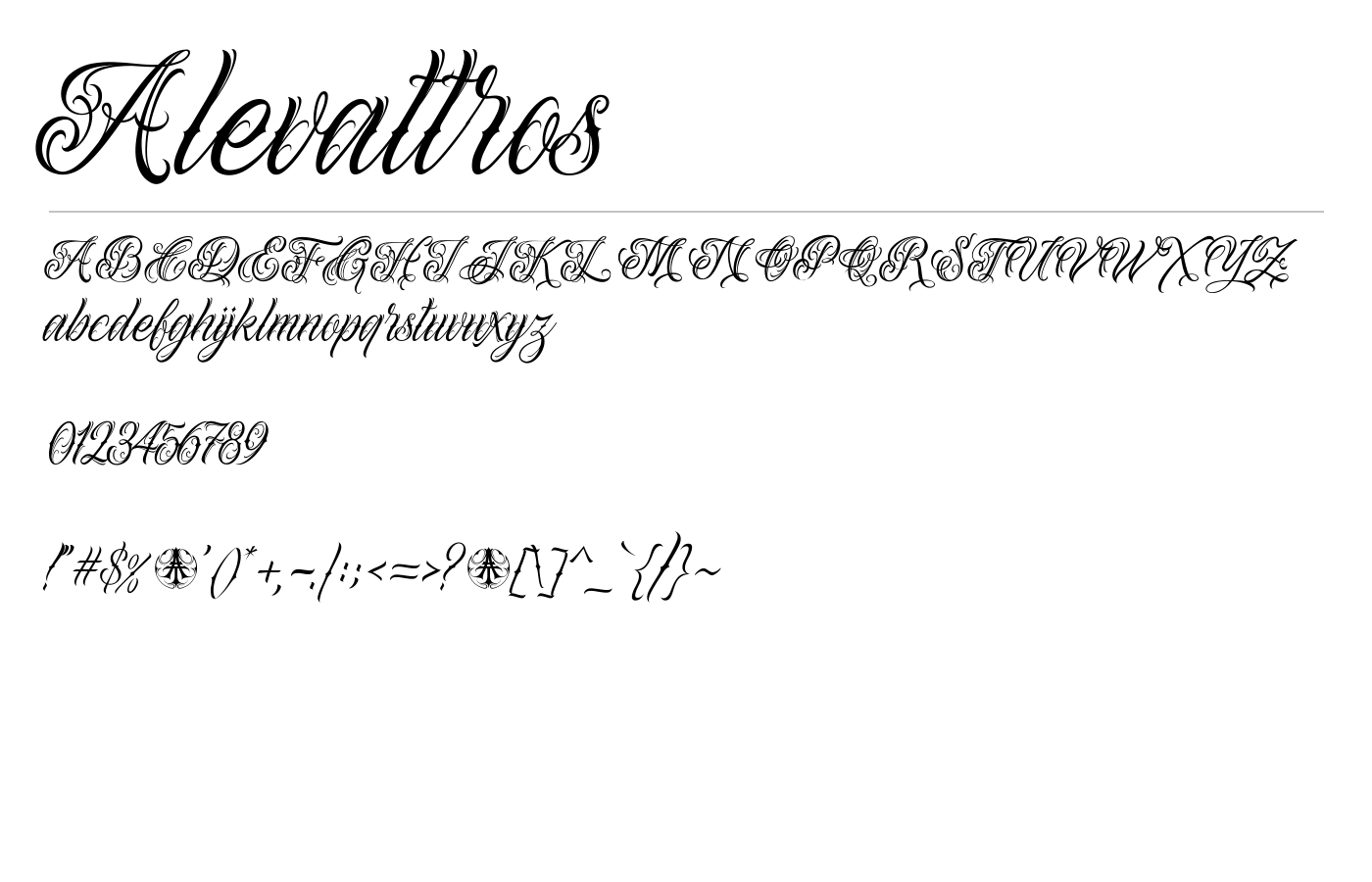
Alevattros is an ornate script font featuring elegant, flowing letterforms with fine, high-contrast strokes that evoke a classic and sophisticated style. Its intricate swashes and delicate curves make it ideal for luxury branding, wedding invitations, and upscale editorial designs where a refined, decorative touch is desired. This font works best in large display settings, conveying elegance and a timeless artistic flair.
Alevattros Font
About Alevattros Font